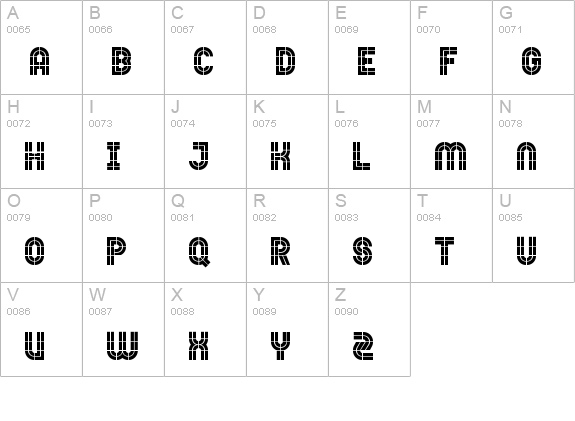
Cobra-Regular is the standard, neutral variant in the Cobra typeface family \xE2\x80\x94 well suited to general body text, paragraphs, and standard typographic work.
Cobra-Regular is a sleek and modern font that exudes elegance and sophistication. With its clean lines and sharp angles, this typeface is perfect for creating eye-catching designs that demand attention. Whether you're designing a logo, branding materials, or a website, Cobra-Regular will elevate your project to the next level. What's even better is that Cobra-Regular is available for free download at FontsMarket.com. You can easily access this versatile font and incorporate it into your creative projects without any cost. Don't miss out on this opportunity to enhance your designs with the timeless appeal of Cobra-Regular. Download it today and let your creativity shine!